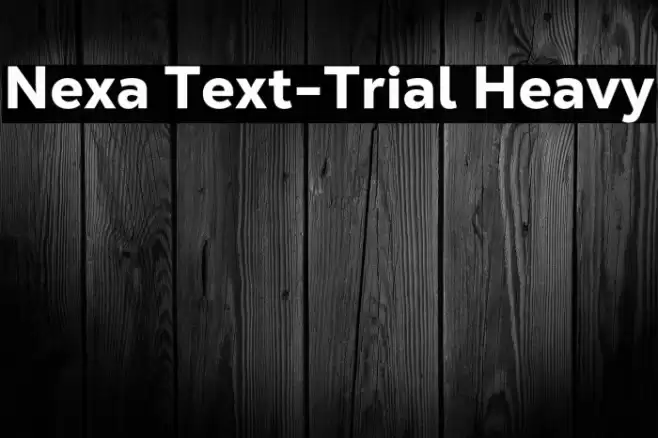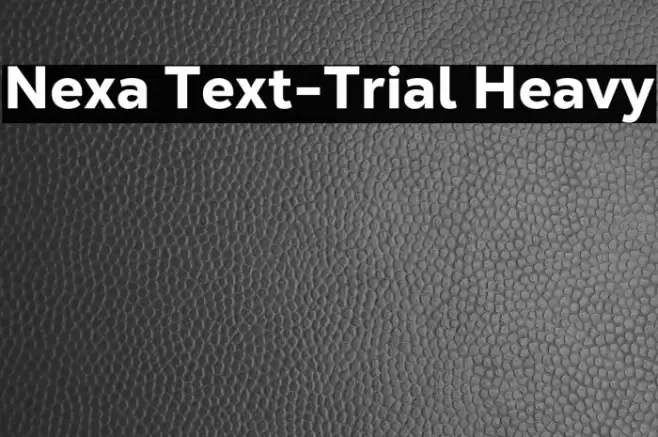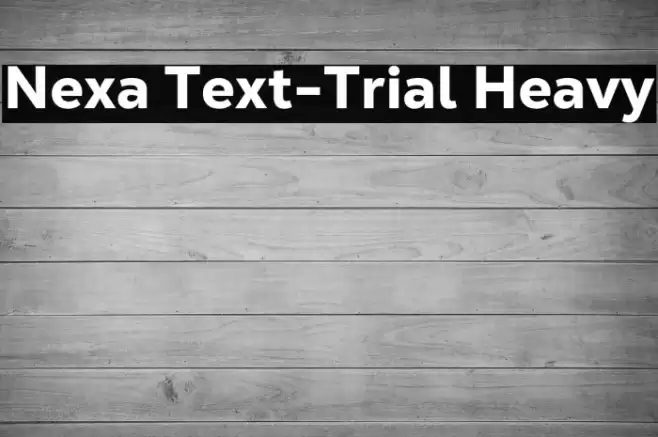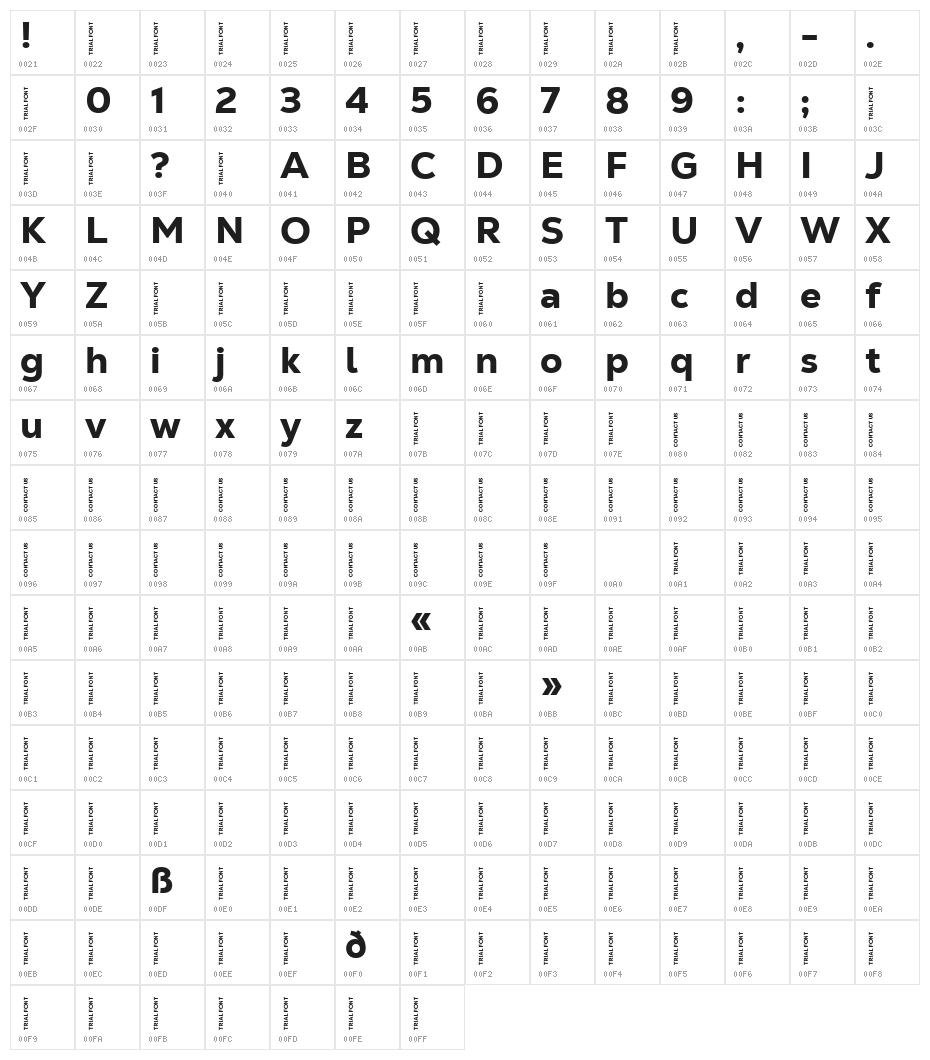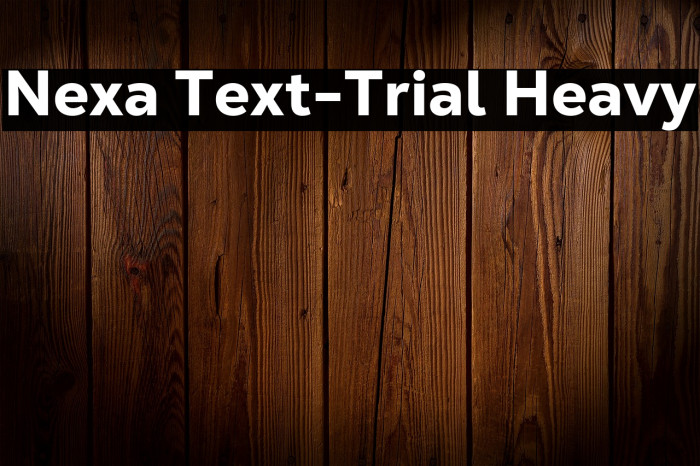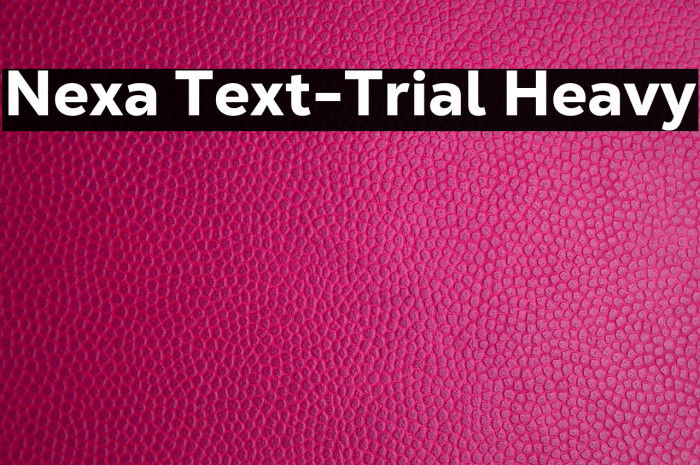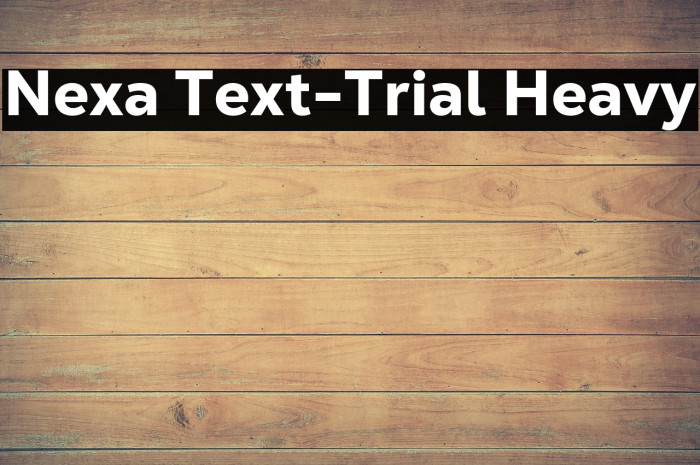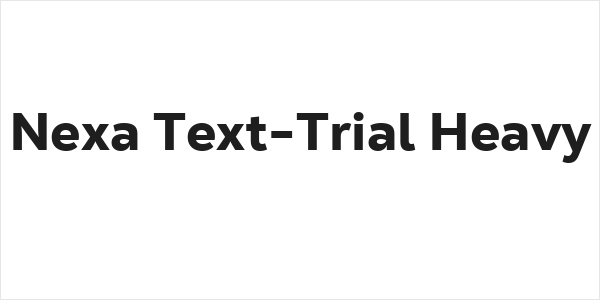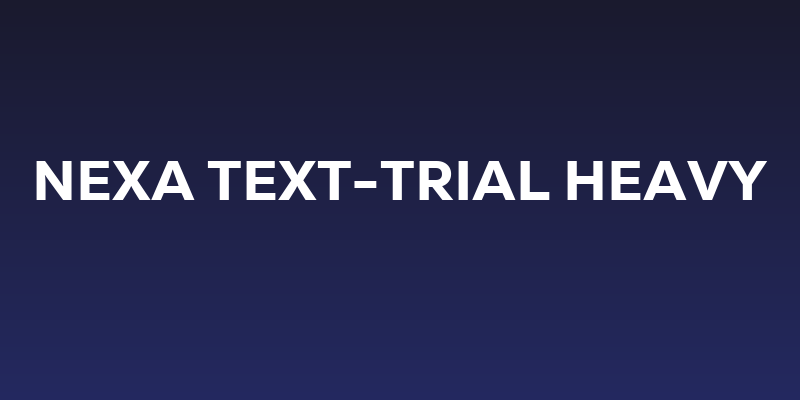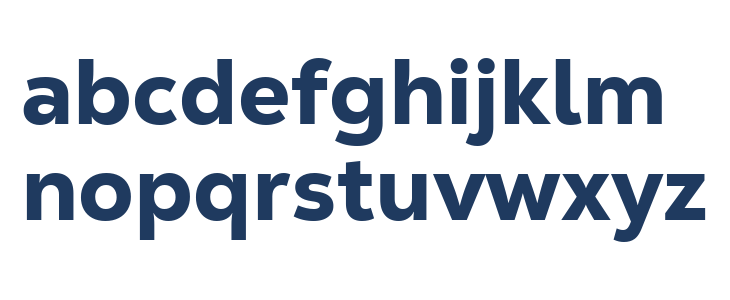
Nexa Text-Trial Heavy Font
Nexa Text-Trial Heavy Description
This typeface exhibits a bold and modern aesthetic, characterized by its clean and geometric letterforms. The uppercase and lowercase letters maintain a consistent weight, contributing to a uniform appearance. The numerals are equally robust, ensuring legibility and impact. Special characters are designed with the same attention to detail, making them suitable for various applications. The overall design is straightforward yet powerful, making it ideal for conveying messages with clarity and strength.
A bold, modern typeface with clean, geometric letterforms from Regular fonts.
- Proposed Projects: Ideal for branding, advertising, headlines, and digital interfaces where a strong visual presence is required.
- Use Case: Headlines, Logos, Advertising